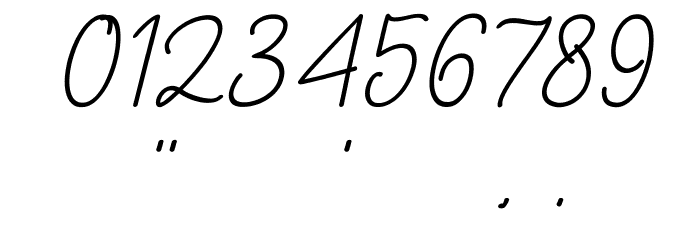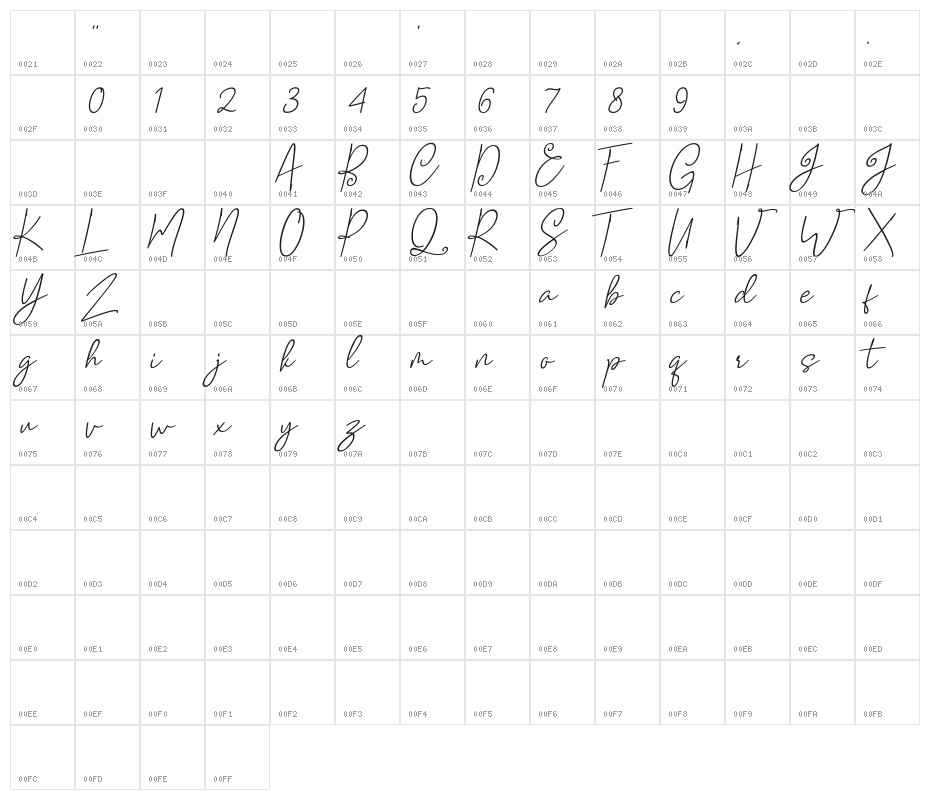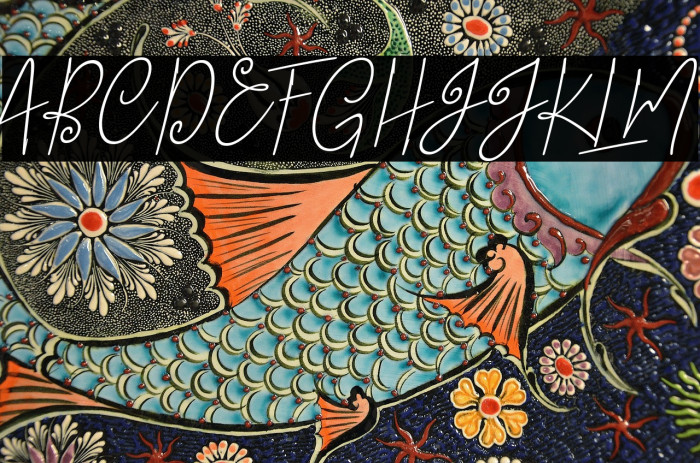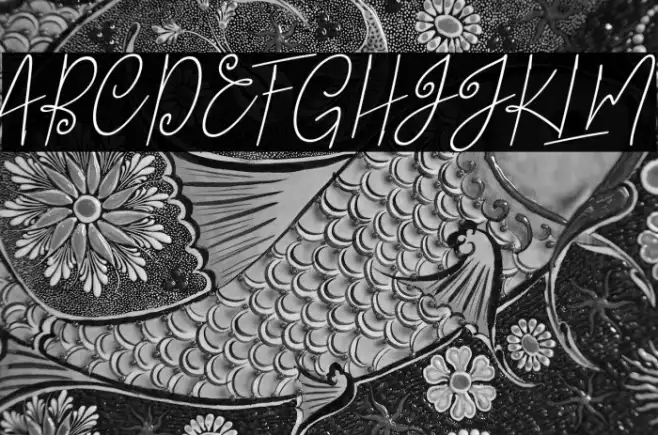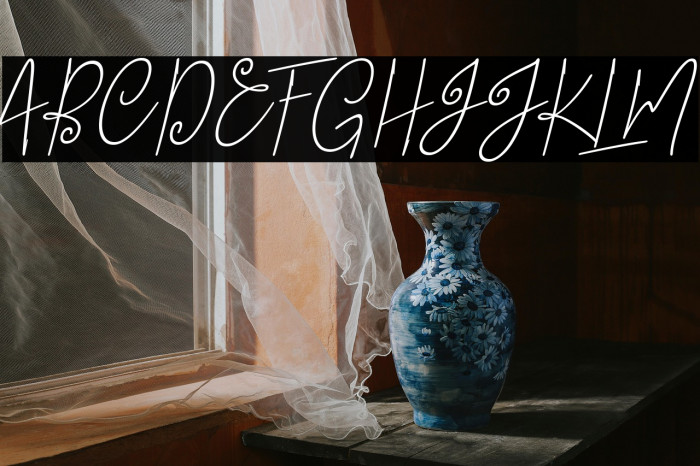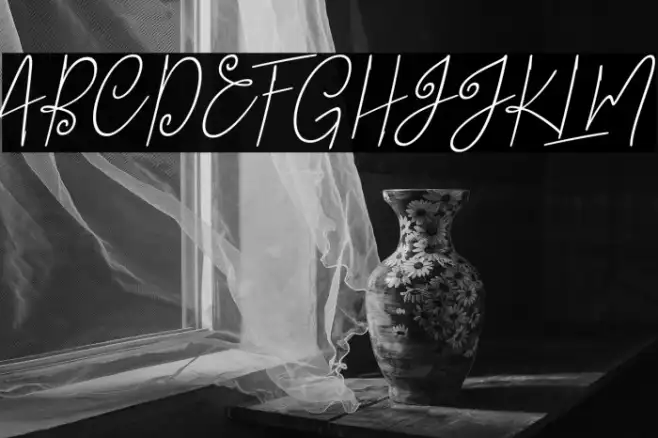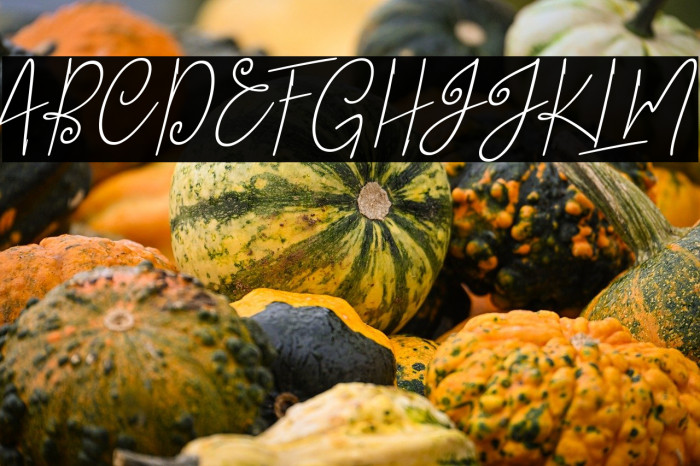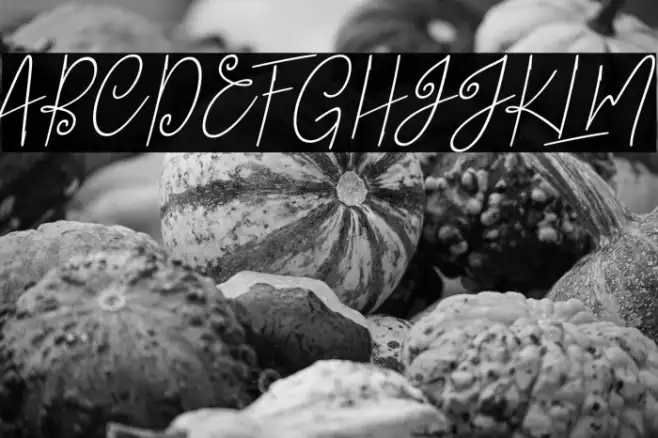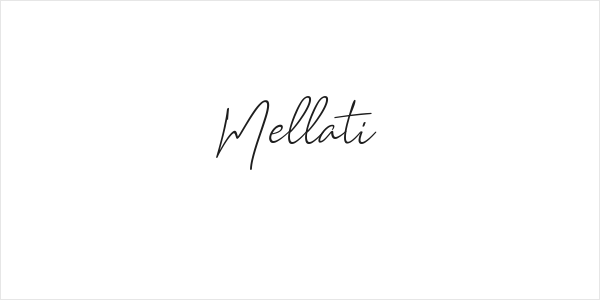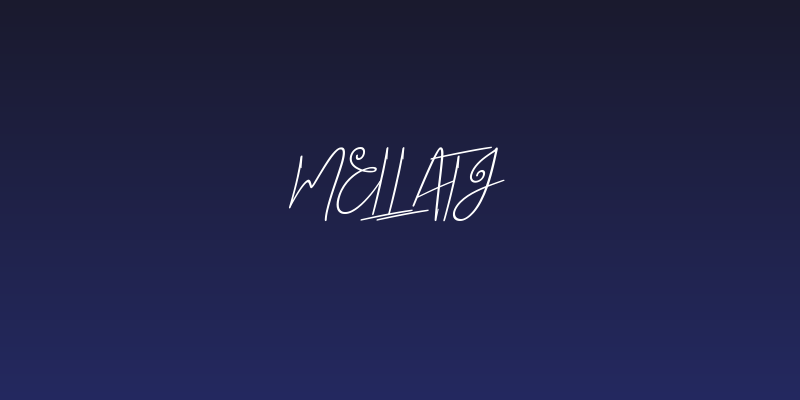
Mellati Font
Mellati Description
This font features a delicate and flowing script style, characterized by elegant, swirling strokes and a handwritten appearance. The uppercase letters are tall and slender, with unique flourishes that add a touch of sophistication. The lowercase letters maintain a consistent flow, enhancing readability while preserving the font's artistic flair. Numbers and special characters are designed to complement the overall aesthetic, making this font suitable for creative projects. The smooth curves and graceful lines evoke a sense of elegance and charm, perfect for adding a personal touch to any design.
| Use Case | Logos, Invitations, Artistic designs |
| Proposed Projects | Ideal for wedding invitations, greeting cards, personal branding, and artistic projects. |